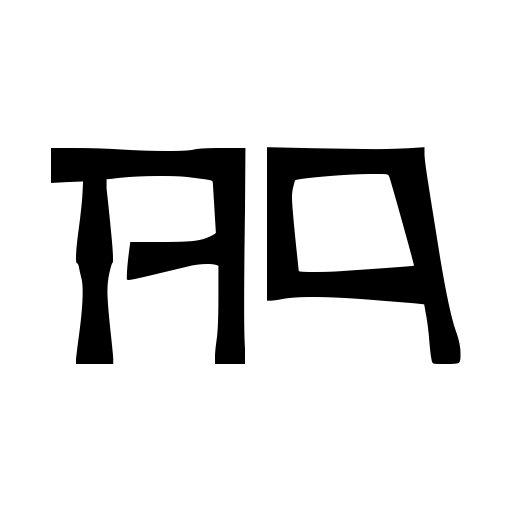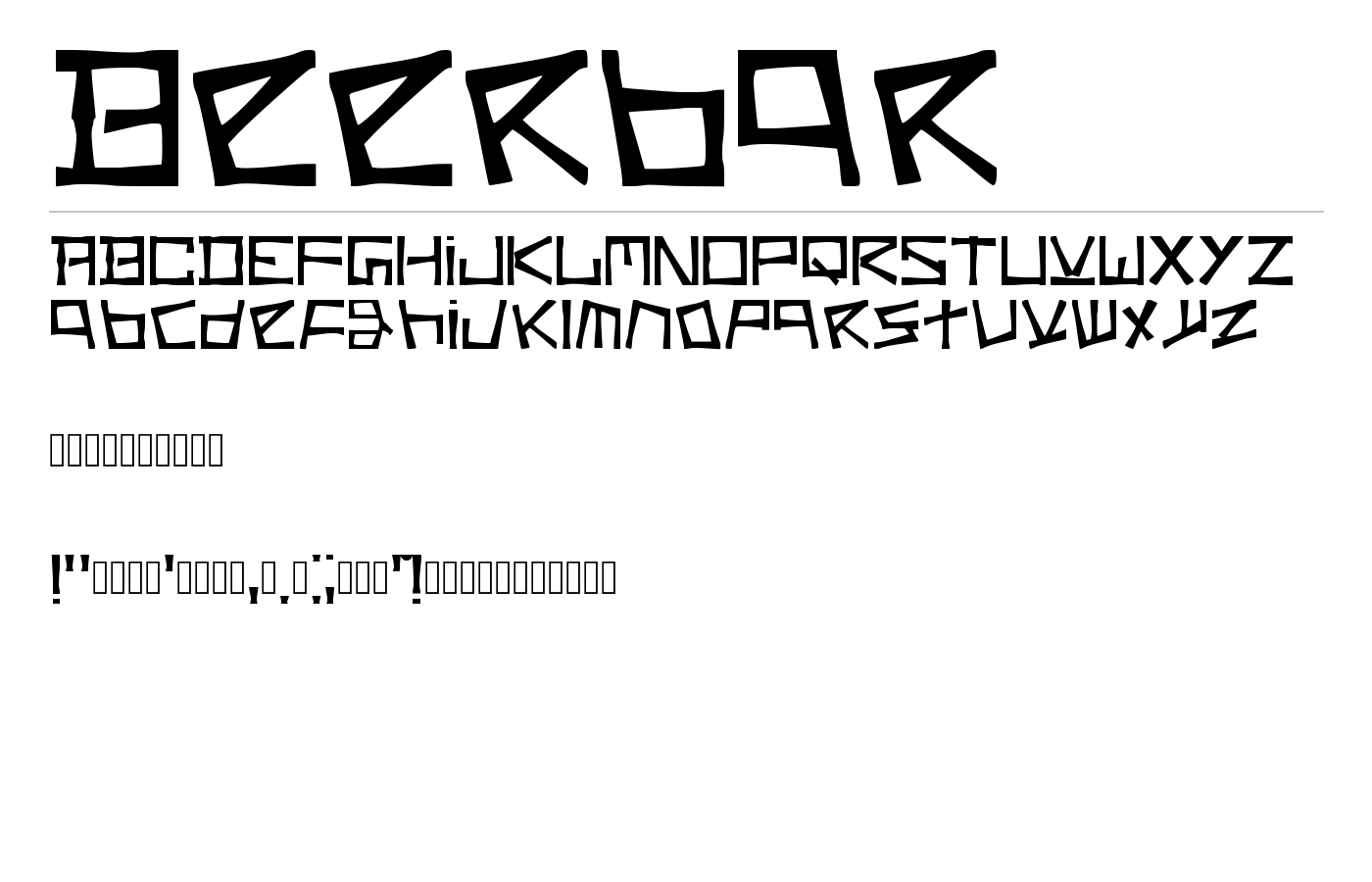
Beerbar is a bold, irregular sans serif font with a quirky, hand-drawn feel that combines angular, sharp strokes and uneven letterforms to create a playful and slightly rebellious character. Its unique, slightly condensed shapes make it perfect for eye-catching headlines, branding, or packaging that seeks a casual, artistic vibe with personality and edge. This font works well in creative projects where a strong, unconventional style is desired rather than for long body text.
Beerbar Font
About Beerbar Font